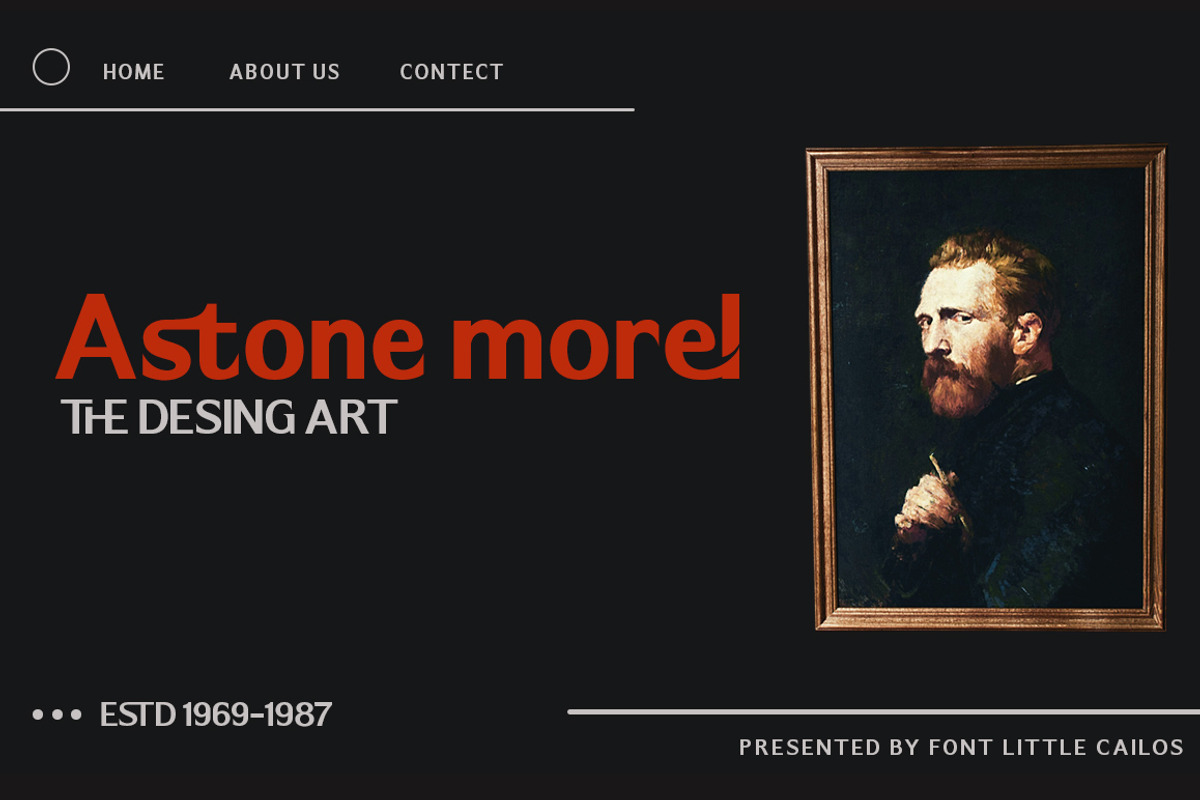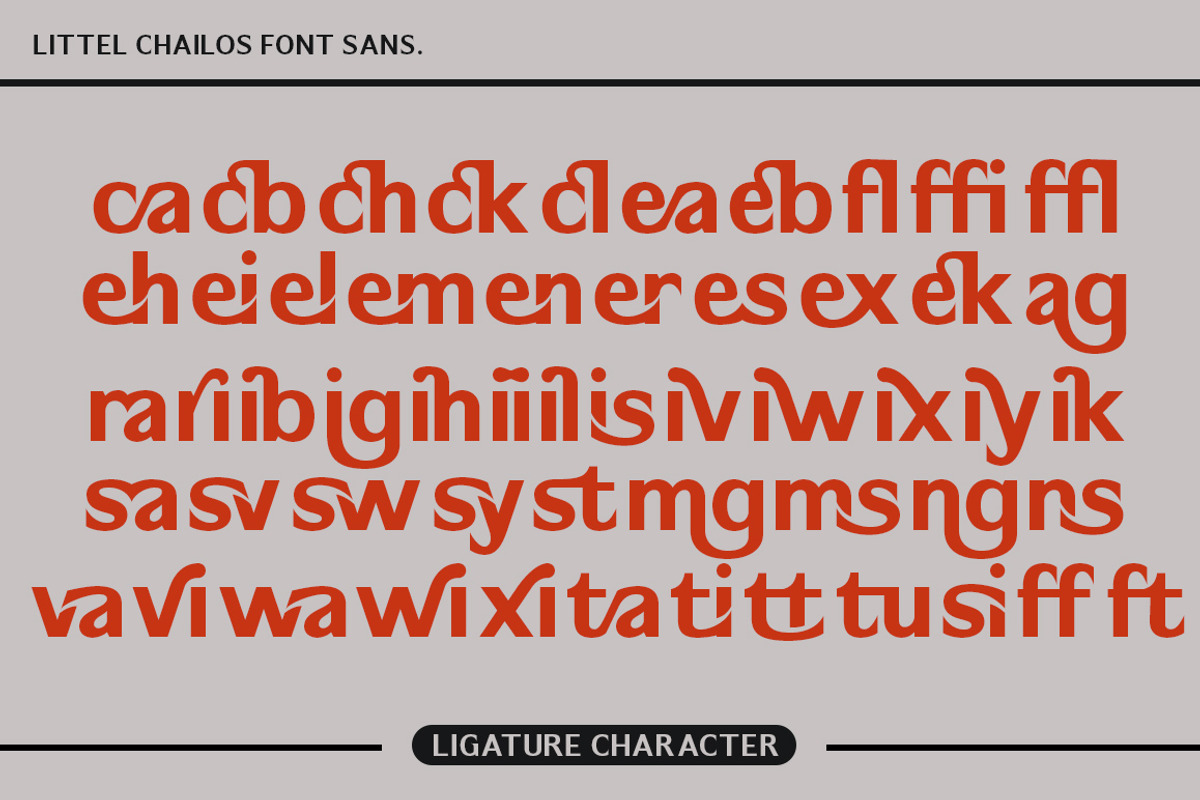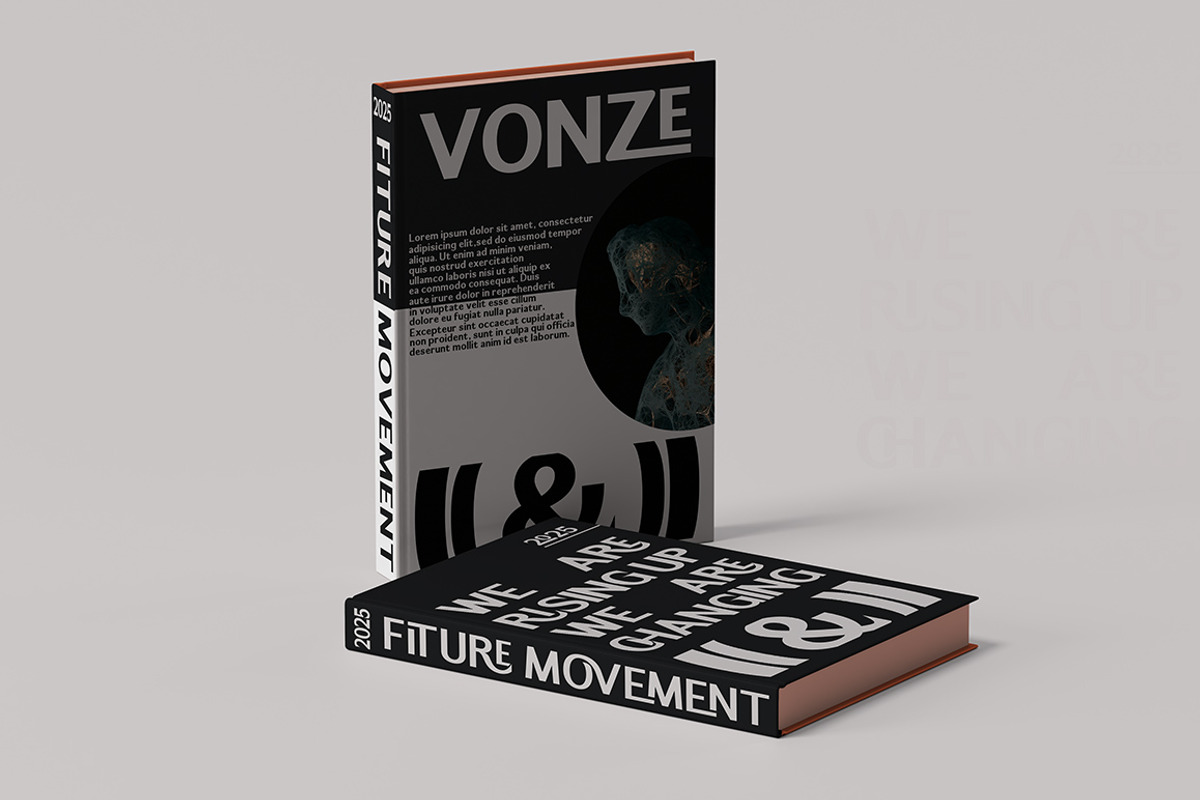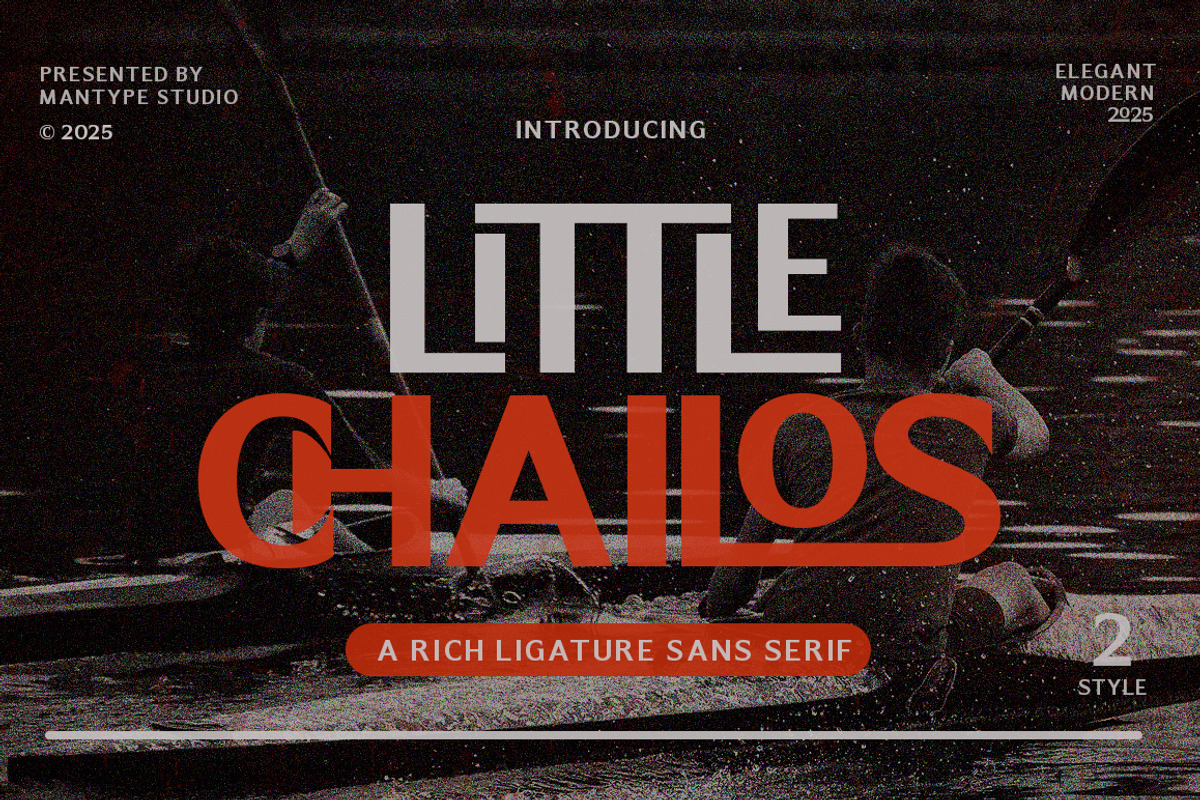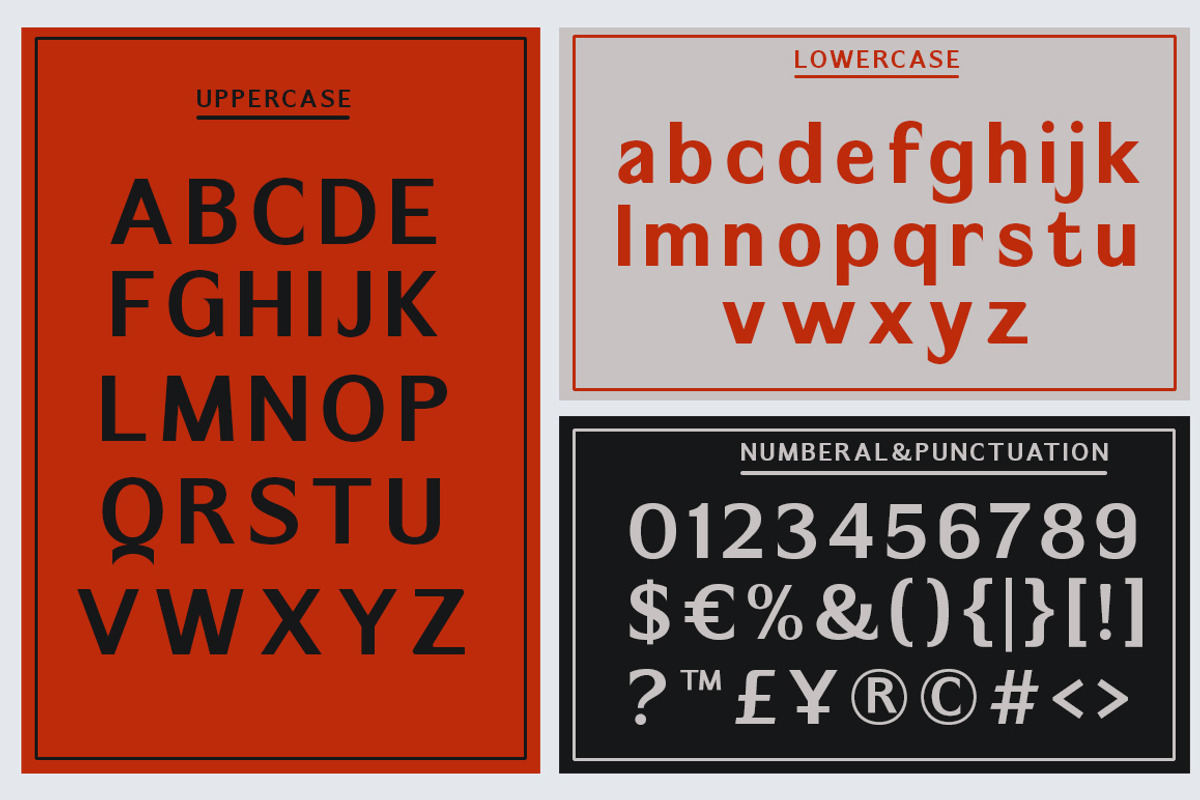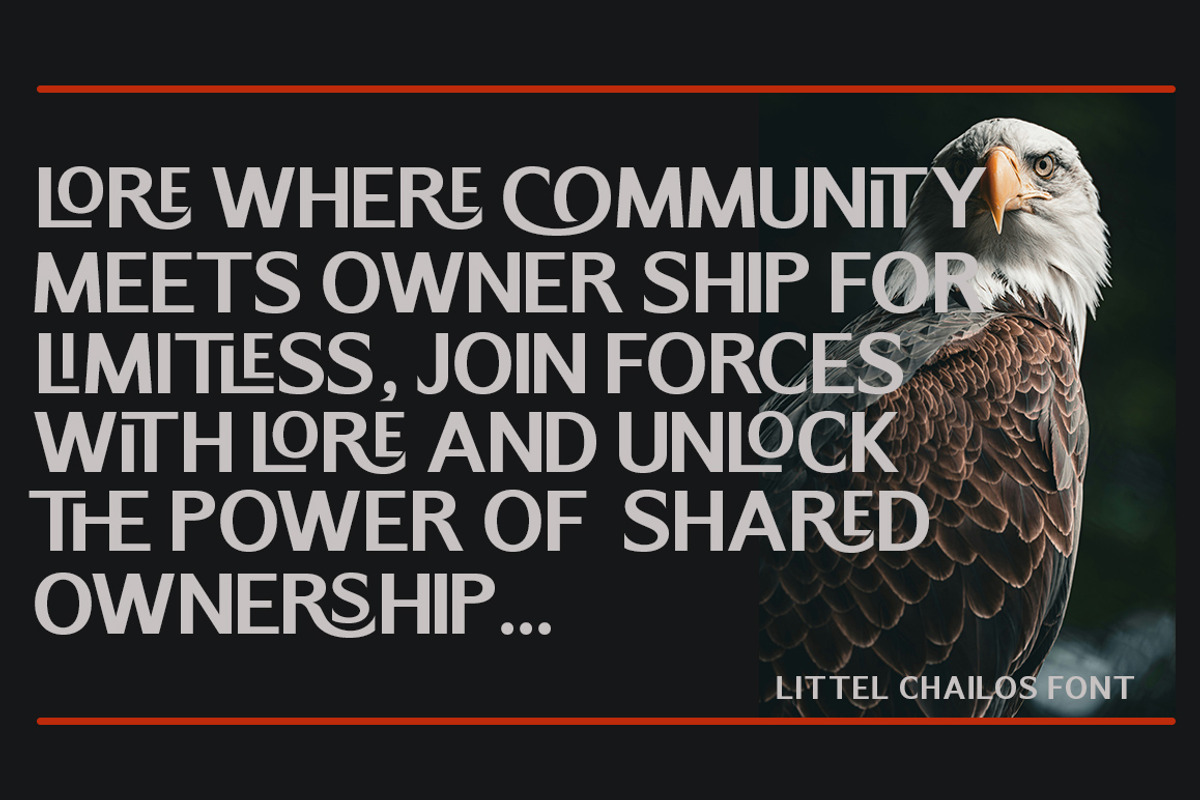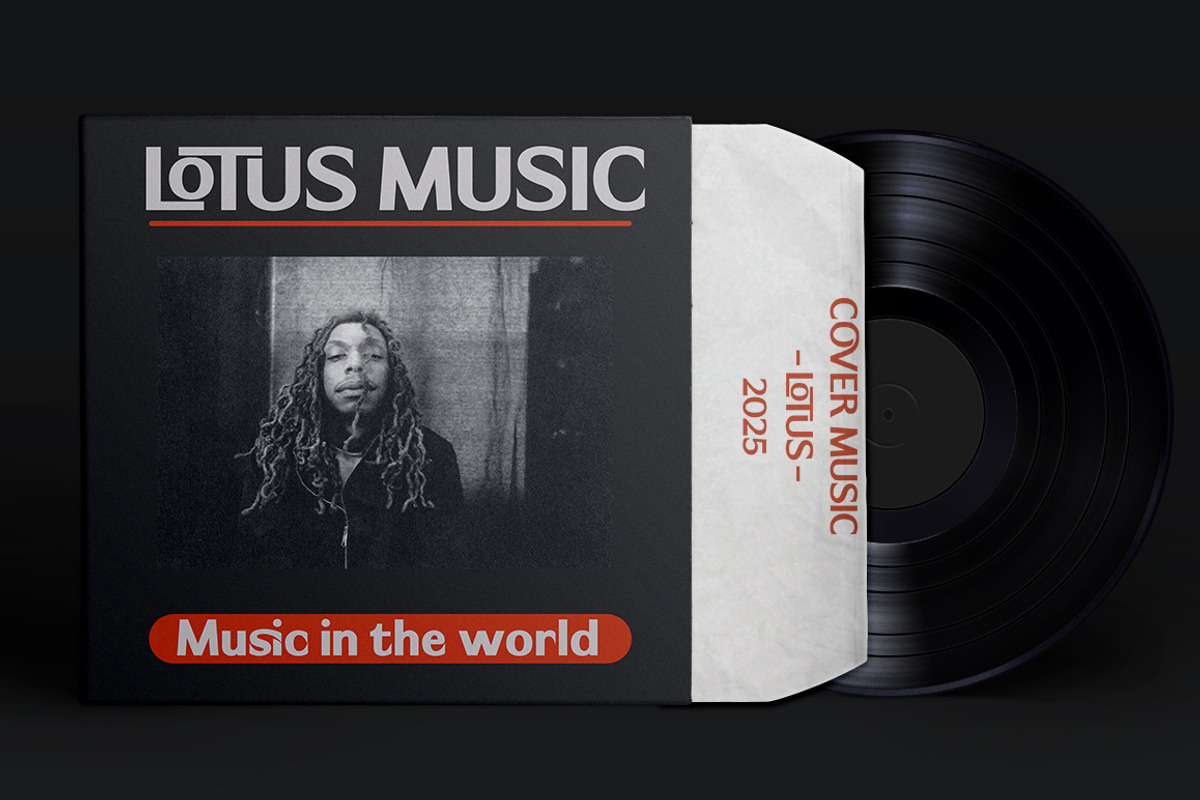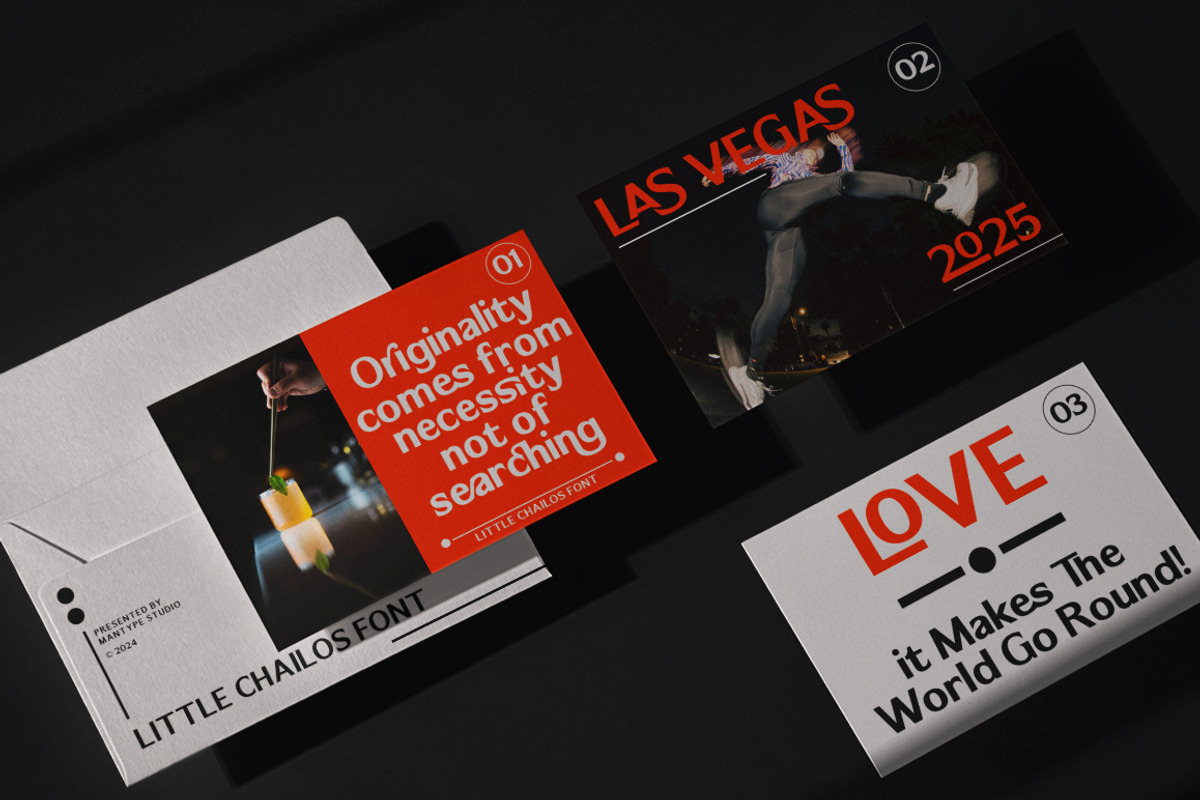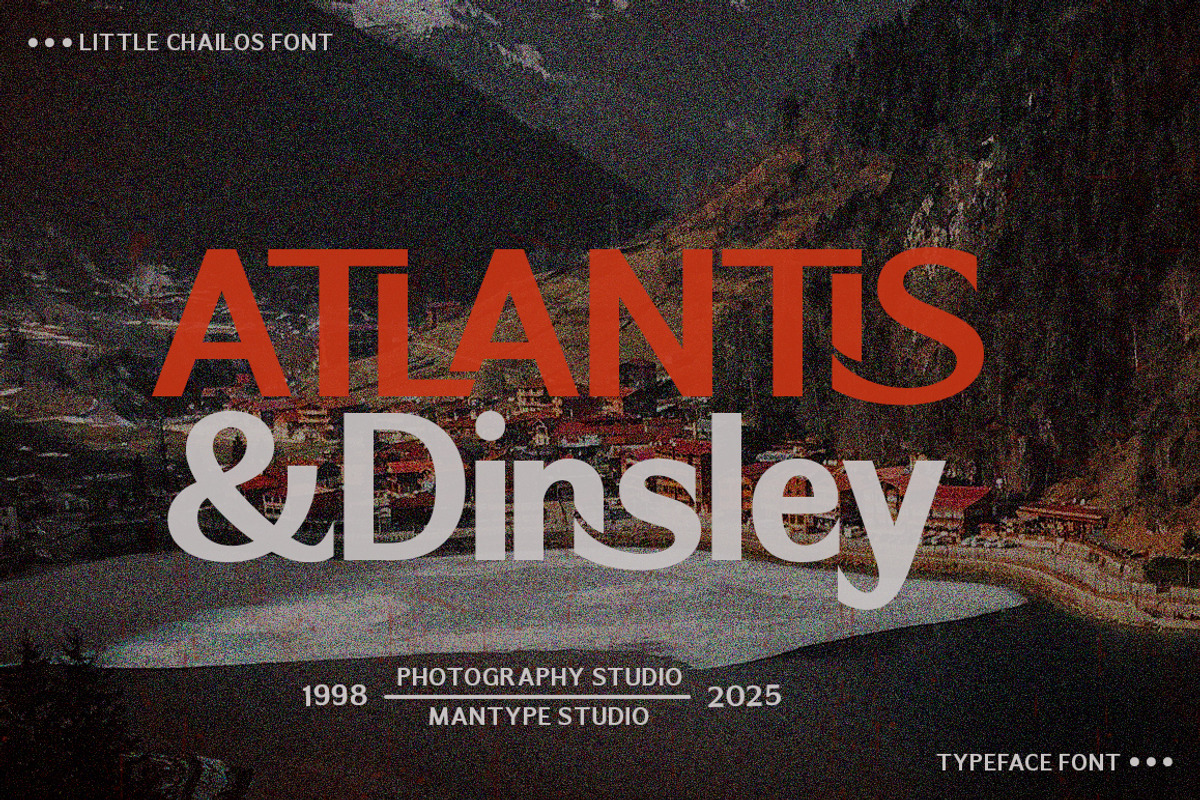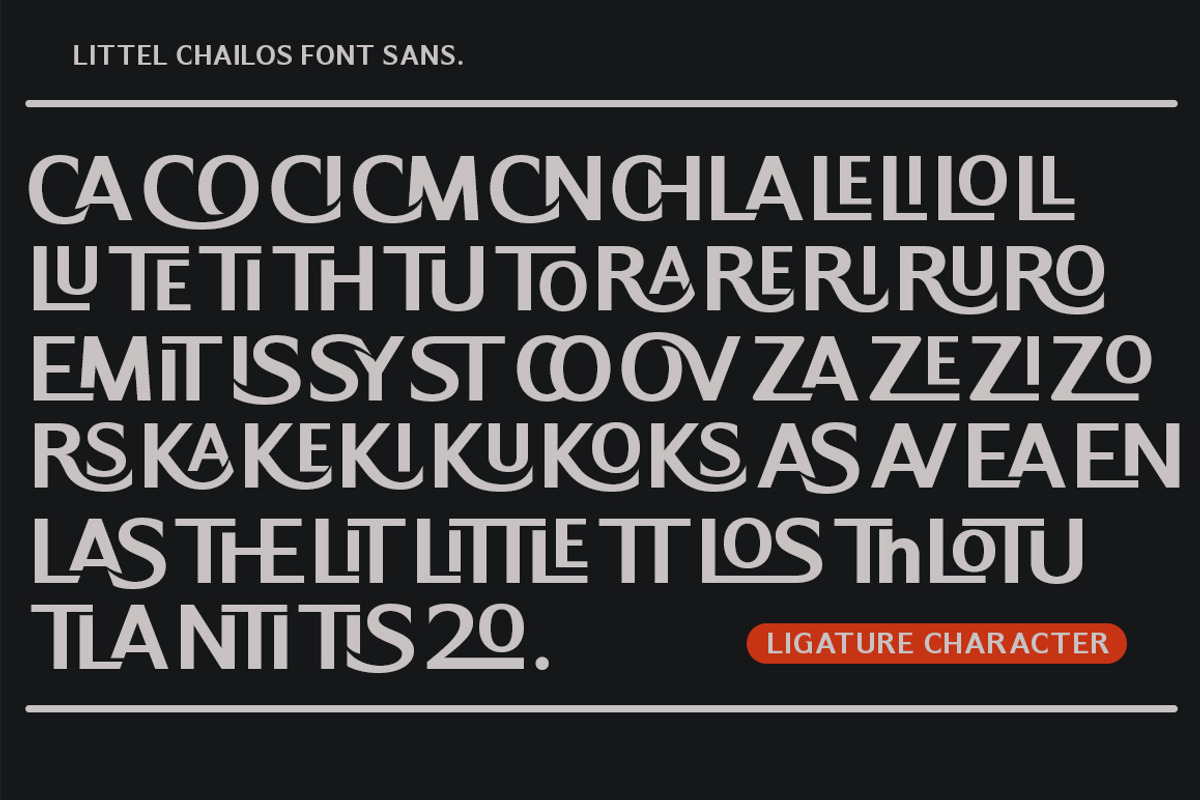
Little Chailos
Little Chailos is a modern sans font with a unique binding style, high contrast and light font perfect for feminine logo signs, fashion heads & editorial designs, branding projects, Apparel Branding, packaging, magazine titles, advertisements, T-shirts, postcards and many more.
Little Chailos Sans also includes complete sets: Uppercase and lowercase letters Automatic ligature Multilingual characters Number punctuation